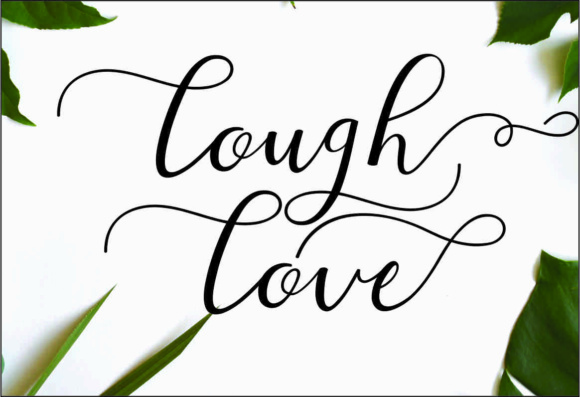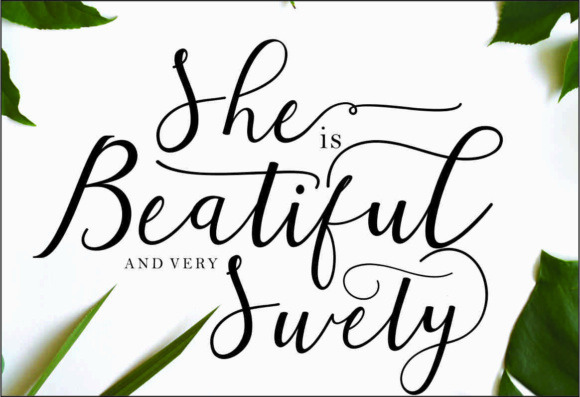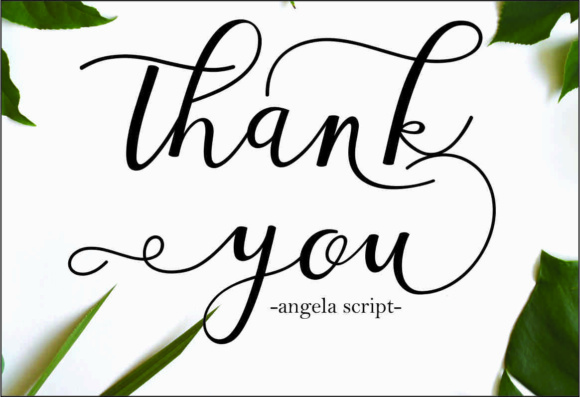
The Angela Script Font: Elevating Your Designs with Elegance and Flair
I’ll never forget the time I was working on a project for a client who wanted a elegant and feminine touch. I had spent hours scouring the internet for the perfect font, but nothing seemed quite right. That was until I stumbled upon the Angela Script Font. With its modern hand scratches and beautiful swashes, it was love at first sight! ✨ In this article, I’ll share my experience with the Angela Script Font, its features, and how to make the most of it in your designs.
- ✨ Elegant and feminine touch: The Angela Script Font is perfect for designs that require a touch of sophistication and glamour.
- ✅ Modern hand scratches: The font’s unique hand scratches give it a trendy and natural feel.
- 💫 Beautiful swashes: The font comes with lots of beautiful swashes that can be used to add a decorative touch to your designs.
- 🎨 Versatile: The font can be used for various designs, from wedding invitations to branding and packaging.
While the Angela Script Font is an amazing font, there are a few quirks to be aware of: ⚠️
- 🤔 Limited use in body text: Due to its script nature, the font may not be suitable for long blocks of body text.
- ⚠️ Swashes can be overwhelming: With so many beautiful swashes to choose from, it’s easy to get carried away and overdo it.
The Angela Script Font was designed with inspiration from modern calligraphy and hand-lettering. The designer aimed to create a font that would capture the elegance and sophistication of traditional calligraphy, while also being trendy and modern. The result is a font that’s perfect for designs that require a touch of glamour and sophistication.
| Font Name | Angela Script Font |
| Author | InkwellTypeCo |
| What is the Angela Script Font best used for? | The Angela Script Font is best used for designs that require an elegant and feminine touch, such as wedding invitations, branding, and packaging. |
| Can I use the Angela Script Font for body text? | While the font can be used for body text, it’s recommended to use it for headings or titles due to its script nature. |
| Is the Angela Script Font suitable for digital use? | Yes, the Angela Script Font is suitable for digital use, including social media graphics, website headers, and email marketing campaigns. |